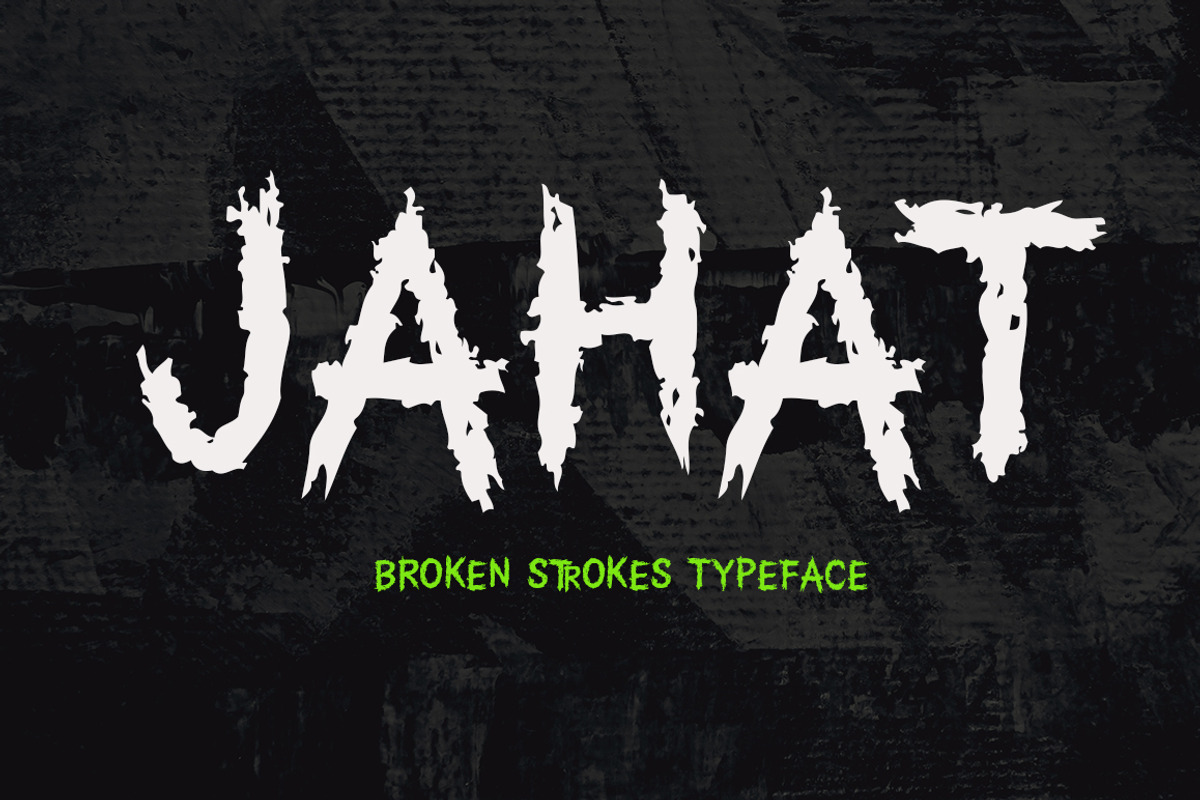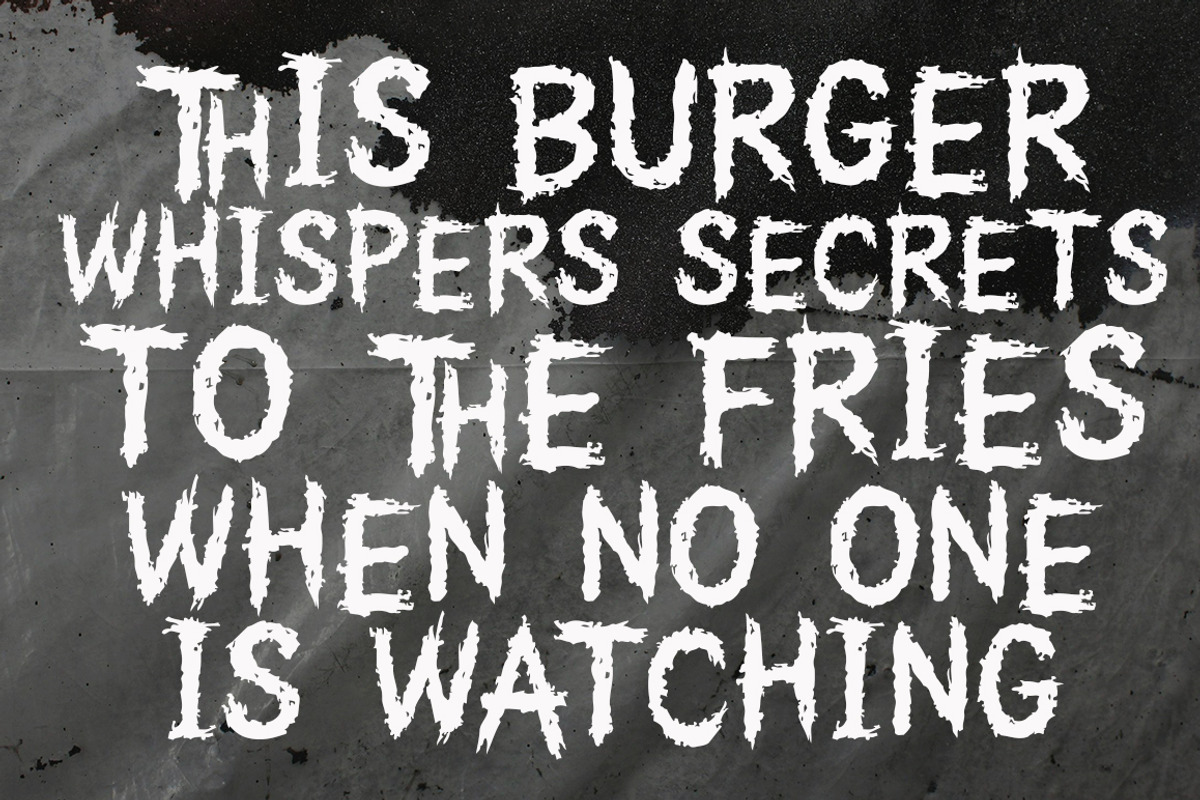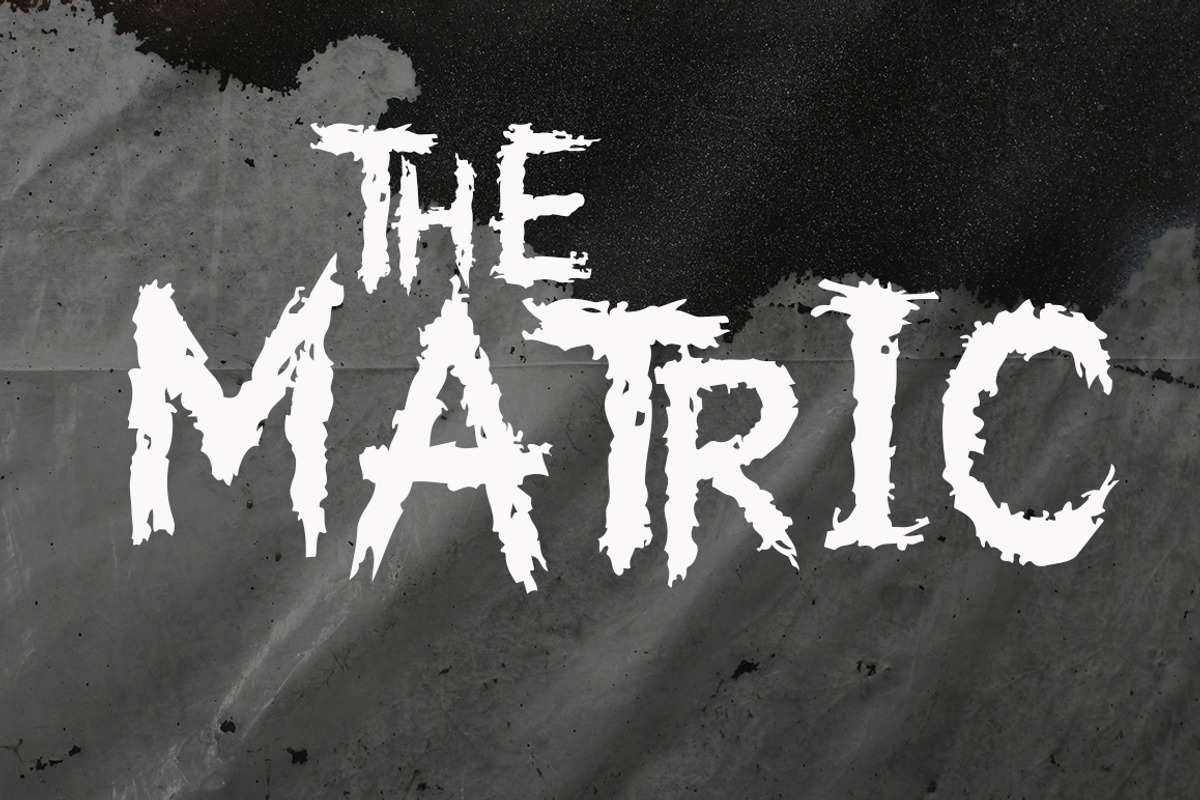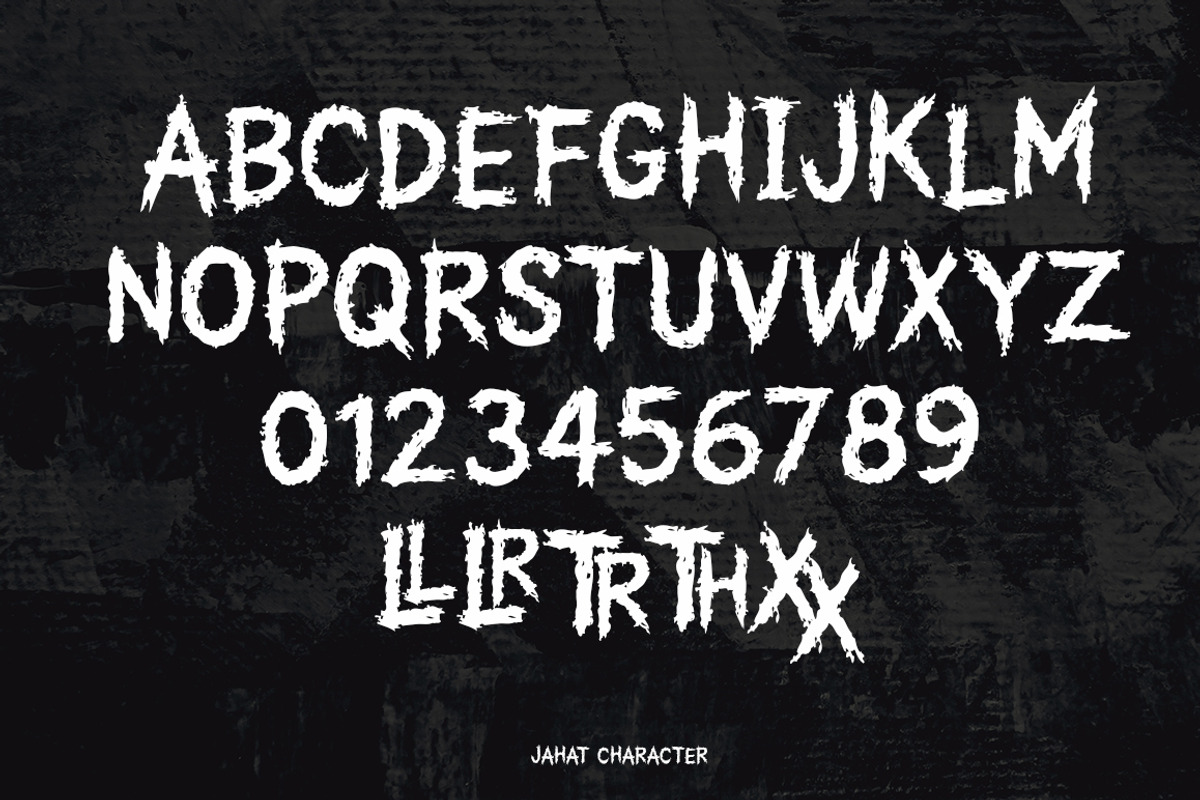
Jahat
This Jahat font drips with dark energy, forged from broken strokes and fractured lines. Every letter feels unstable, like it’s been torn apart and reassembled with malicious intent. The jagged shapes and chaotic rhythm give it a menacing presence, perfect for horror posters, metal band logos, or any design that needs a touch of wickedness. This is not a font that whispers — it screams rebellion, corruption, and chaos